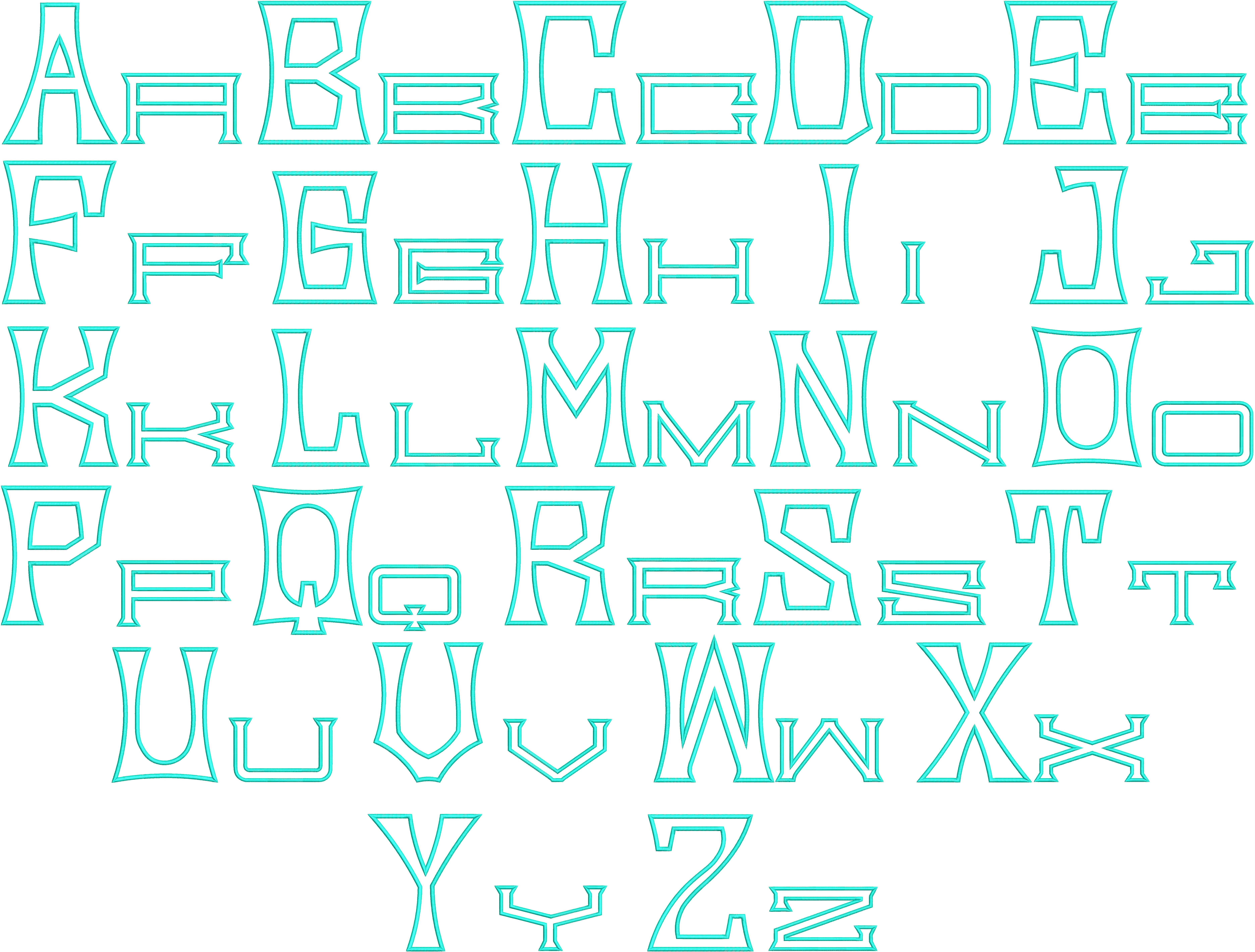
Titus Roman 2-letter Block Overlap Font
Titus Roman 2-letter Block Overlap Monogram Satin Monogram Machine Embroidery Font - Digitized Sewing Pattern Instant Download Art Files. Perfect for a Bespoke Linen or Pillow.
You get 2 different letter sets of 26 alphabet letters (small and big center letters) sizes 6", 7" and 8" high